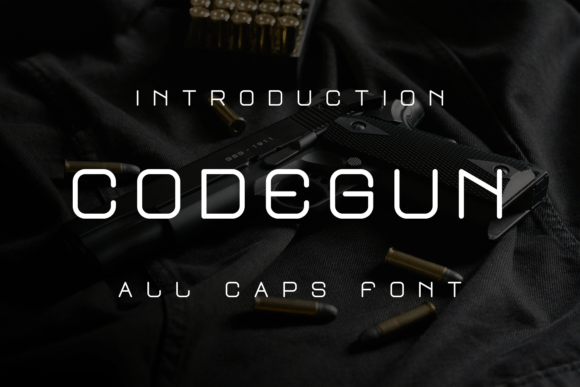
Prepare yourself for a revolutionary font experience with Codegun, the ultimate sans serif font family designed to ignite your gaming creations. Unleash your inner gamer and immerse yourself in a world of limitless possibilities with this captivating font. Codegun is not just a font; it's a gateway to a new level of gaming aesthetics.
With its clean, modern lines and bold, confident strokes, Codegun commands attention and demands respect. This all-caps font exudes strength, power, and a touch of futurism that perfectly complements the competitive spirit of gaming. It's the perfect choice for game titles, logos, user interfaces, and any element that demands attention.
Codegun is more than just a font; it's a tool that enhances your gaming experience. Its sharp edges and dynamic curves create a sense of urgency and excitement, propelling your players into the heart of the action. Whether you're creating a first-person shooter, a strategic RPG, or a casual puzzle game, Codegun has the power to elevate your project to new heights.